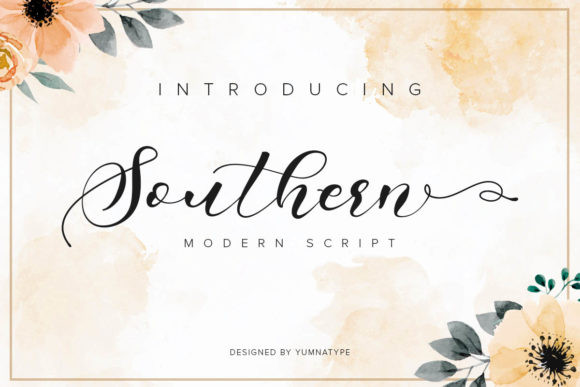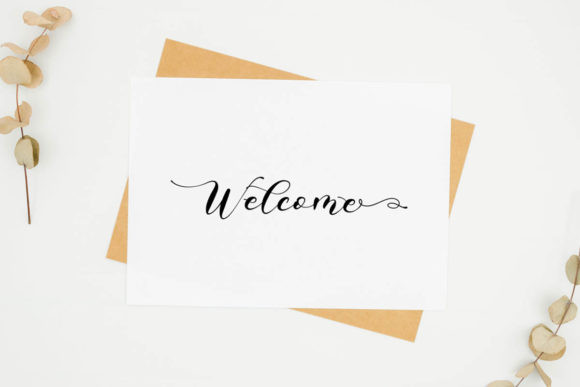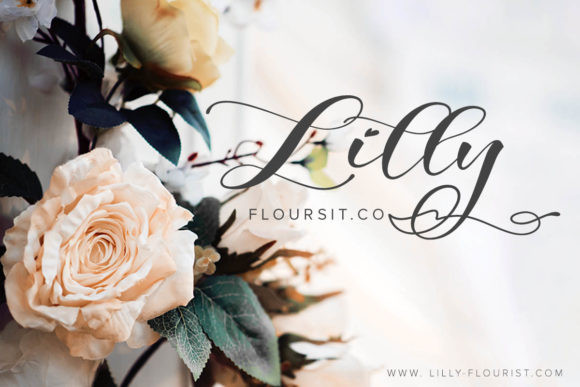
Southern Font
Southern FontSouthern is a refined and stylish script font. It is PUA encoded which means you can access all of the glyphs and swashes with ease! It features a varying baseline, smooth lines, gorgeous glyphs and stunning alternates.
It looks stunning on wedding invitations, thank you cards, quotes, greeting cards, logos, business cards and every other design that needs a handwritten touch.